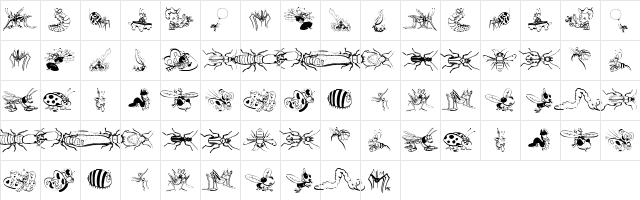
InsectsMK Regular
Design Context for InsectsMK Typeface
InsectsMK is a composed and adaptable typeface that performs quietly and consistently across a wide range of design contexts.